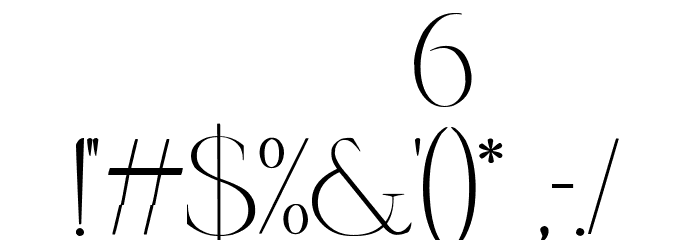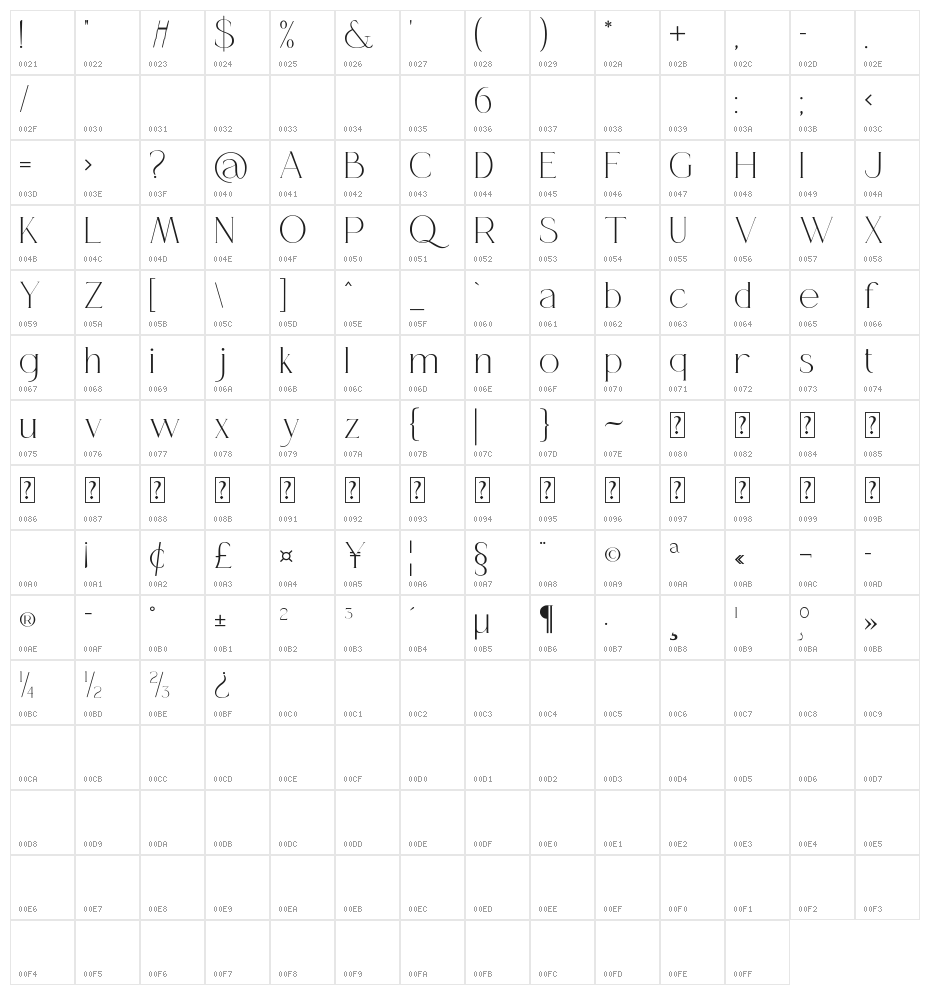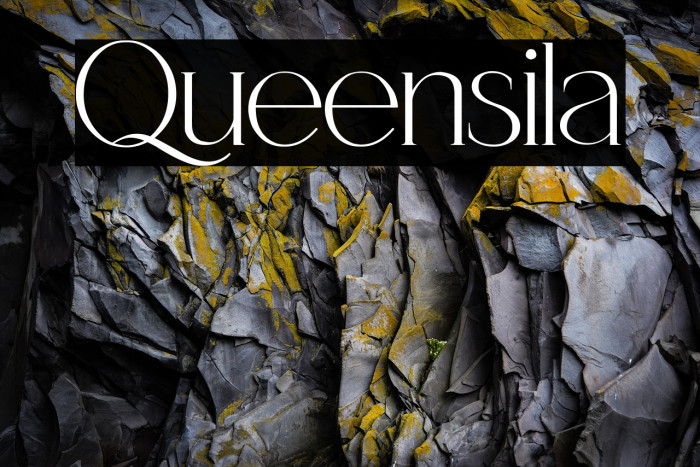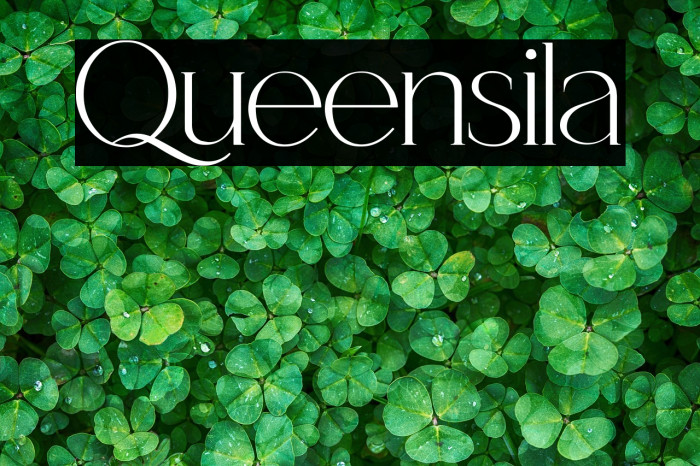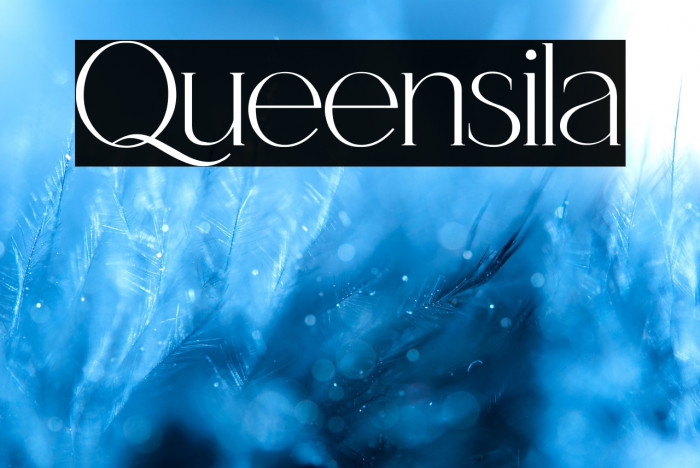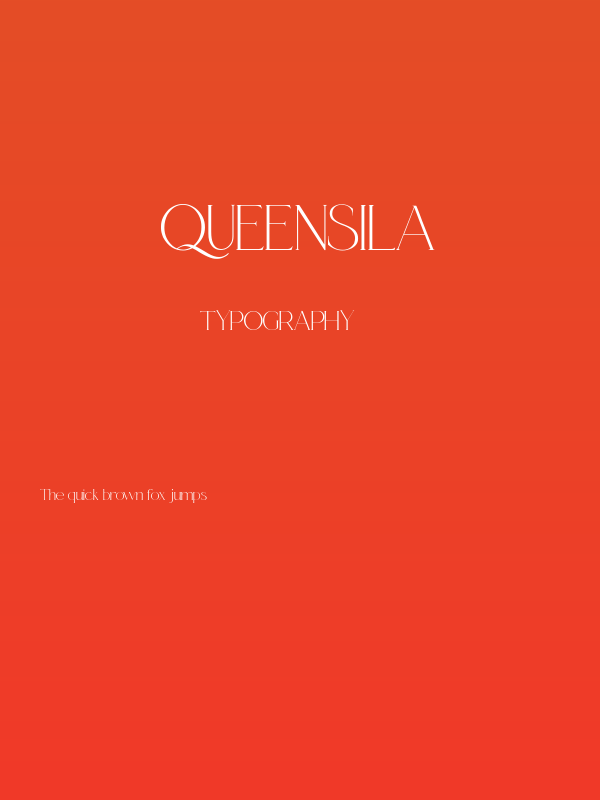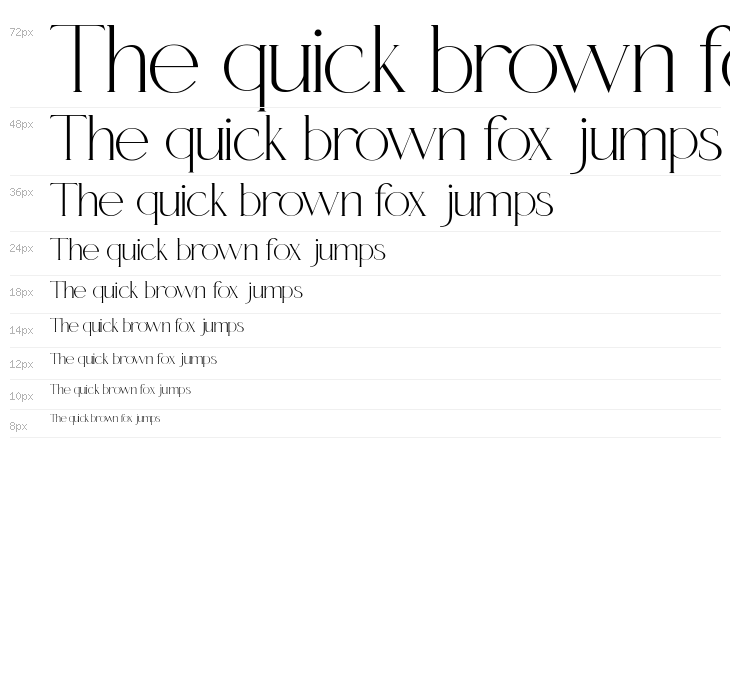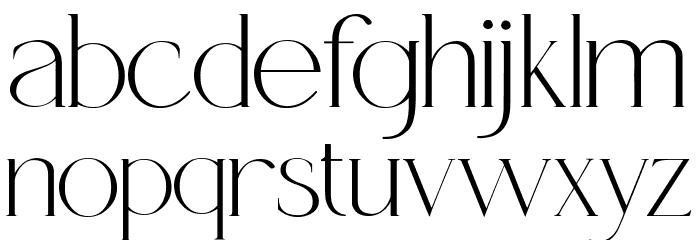
Queensila Font
Queensila Description
This typeface exhibits a refined and elegant design, characterized by its thin, elongated strokes and high contrast between thick and thin lines. The uppercase letters are tall and slender, with a sophisticated flair that adds a touch of luxury. The lowercase letters maintain a consistent style, with smooth curves and a graceful appearance. The numerals and special characters are crafted with the same attention to detail, ensuring a cohesive look across all elements. This font's delicate yet striking design makes it suitable for high-end branding and editorial projects.
| Overall Style | Elegant and sophisticated |
| Use Case | Headlines, Logos, Editorial design |
| Proposed Projects | Ideal for luxury branding, fashion magazines, elegant invitations, and high-end product packaging. |